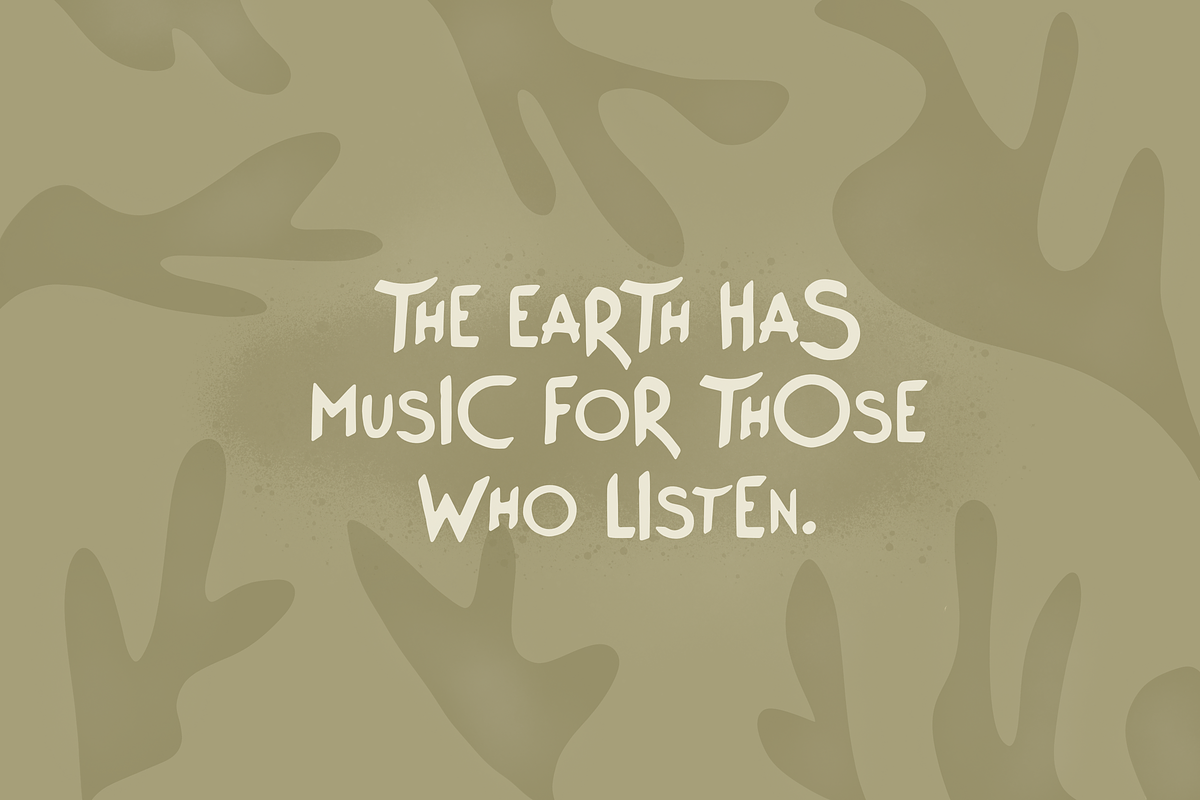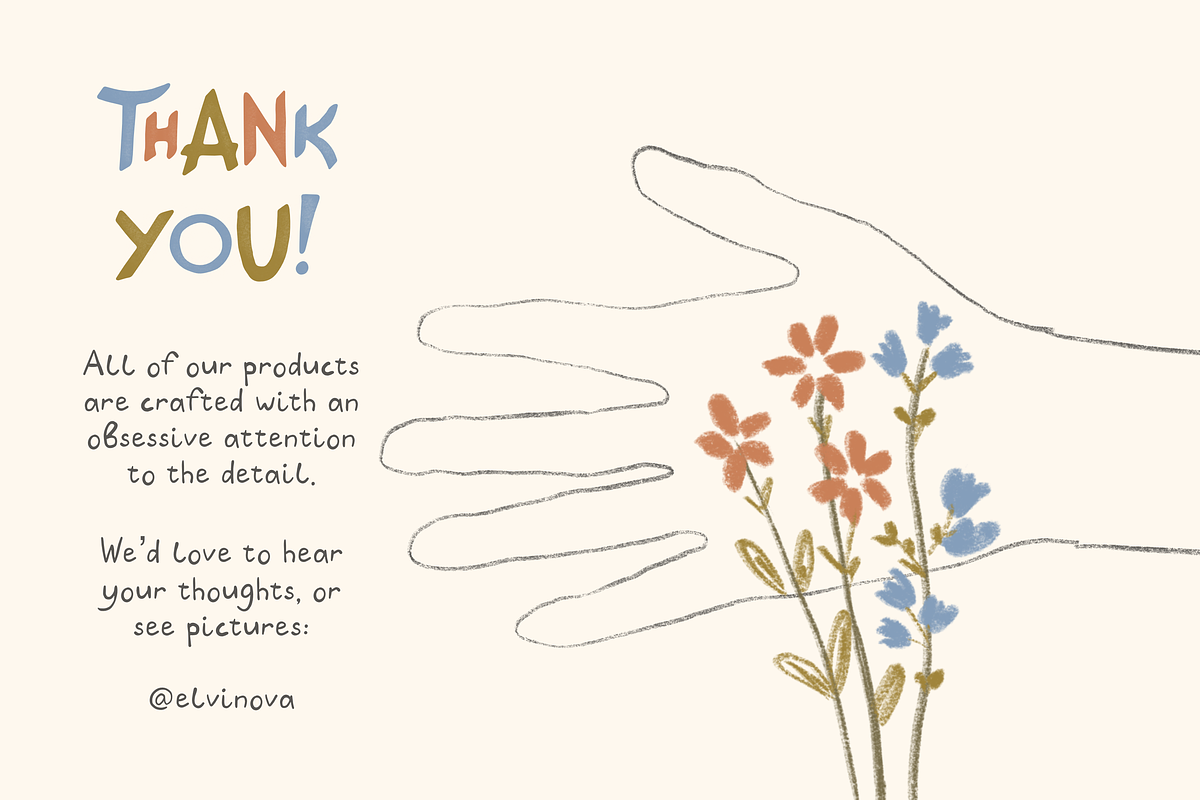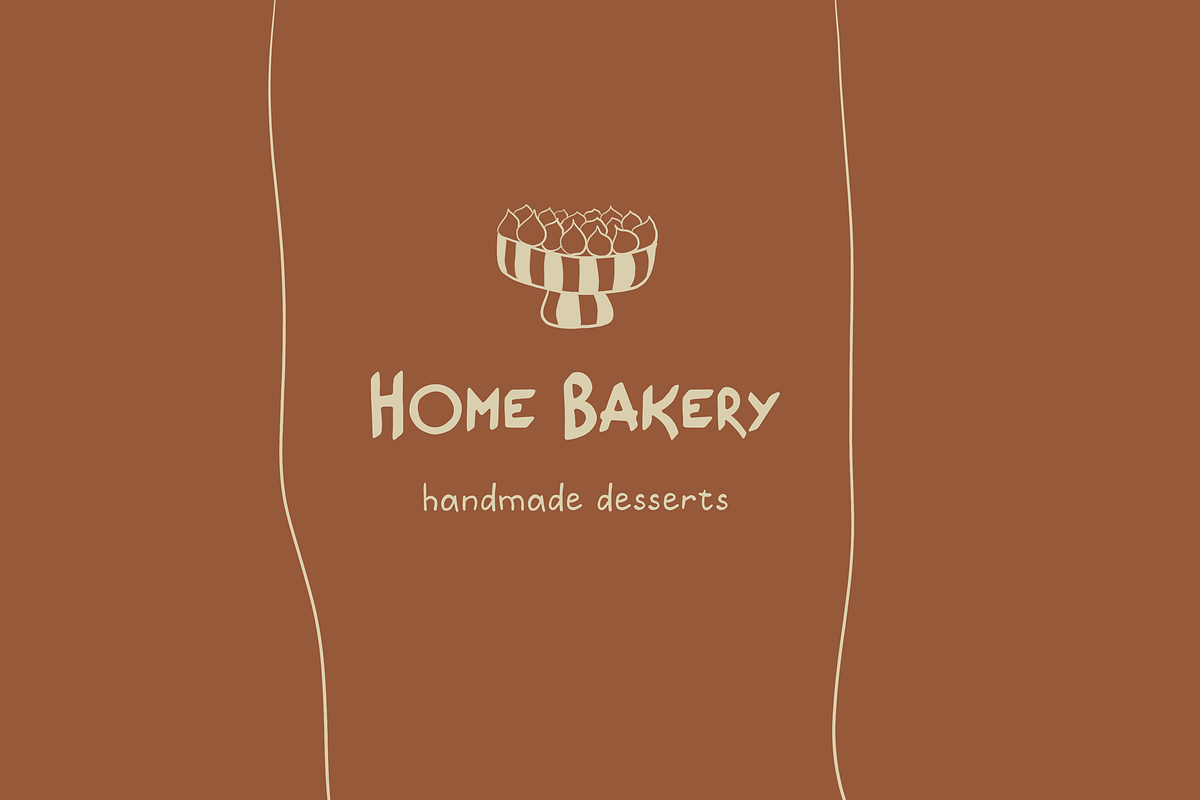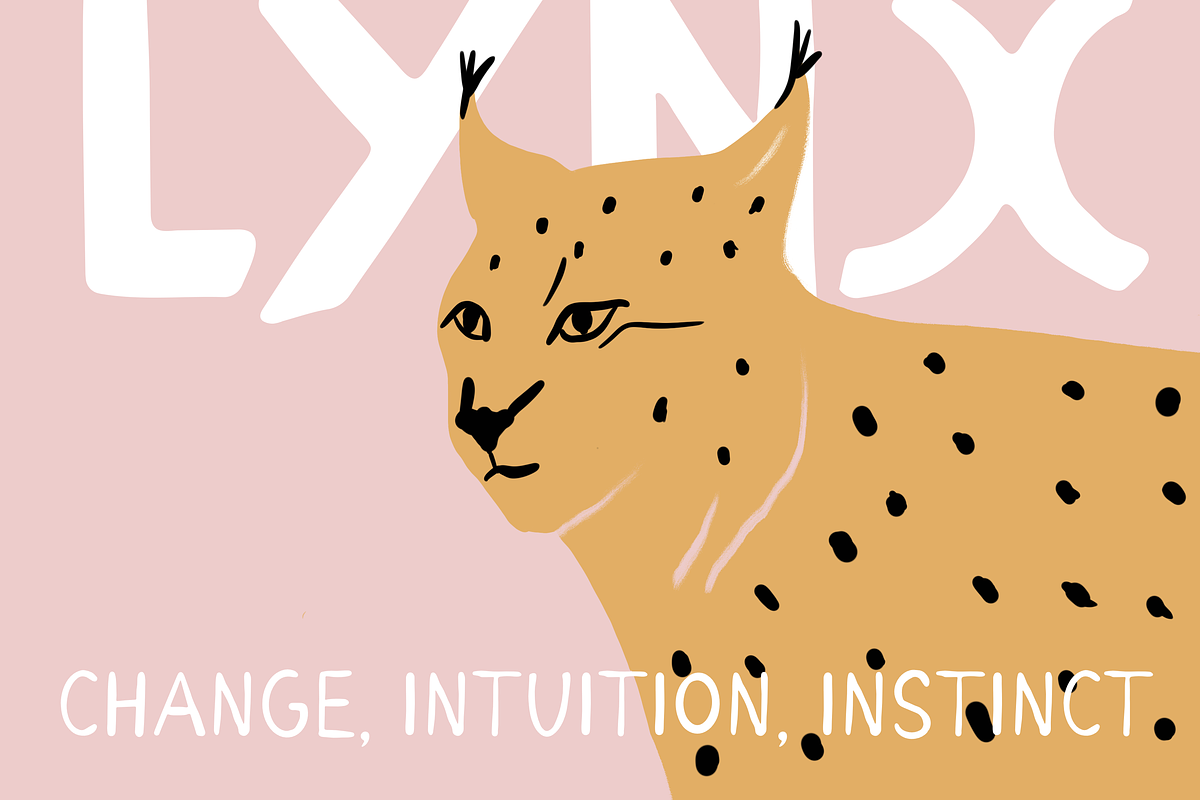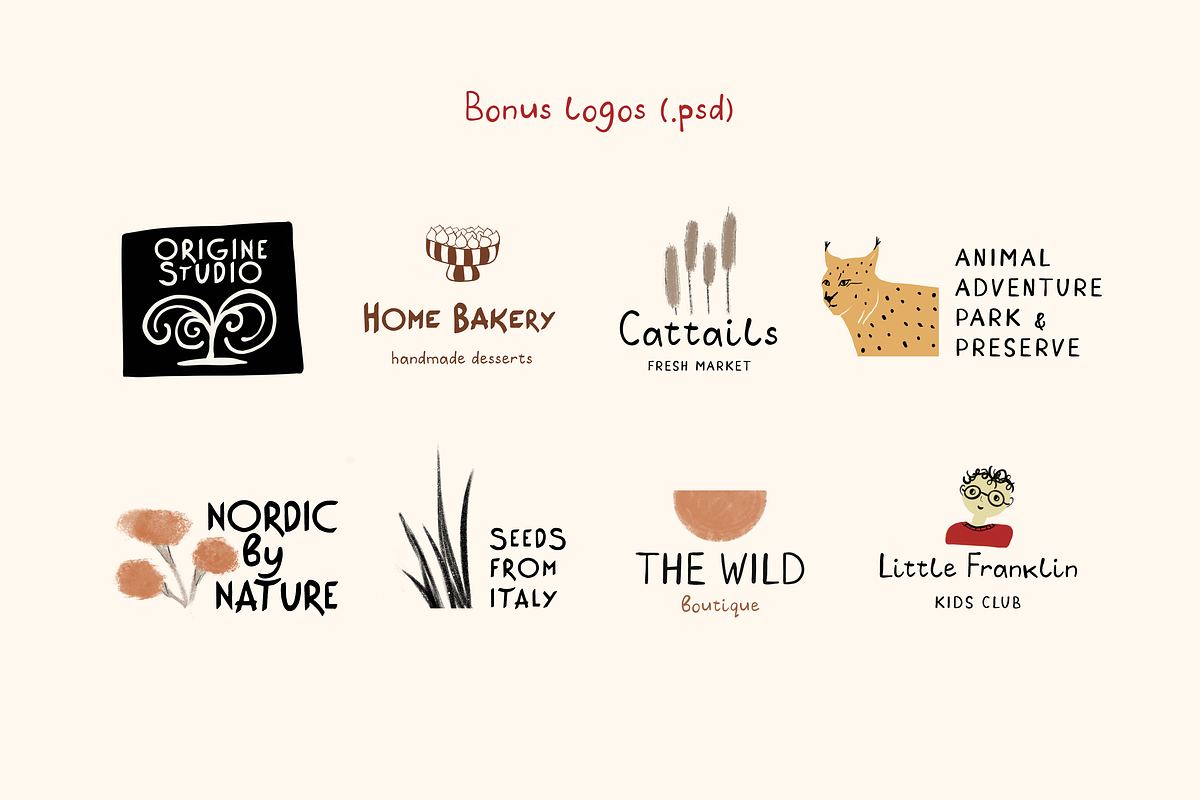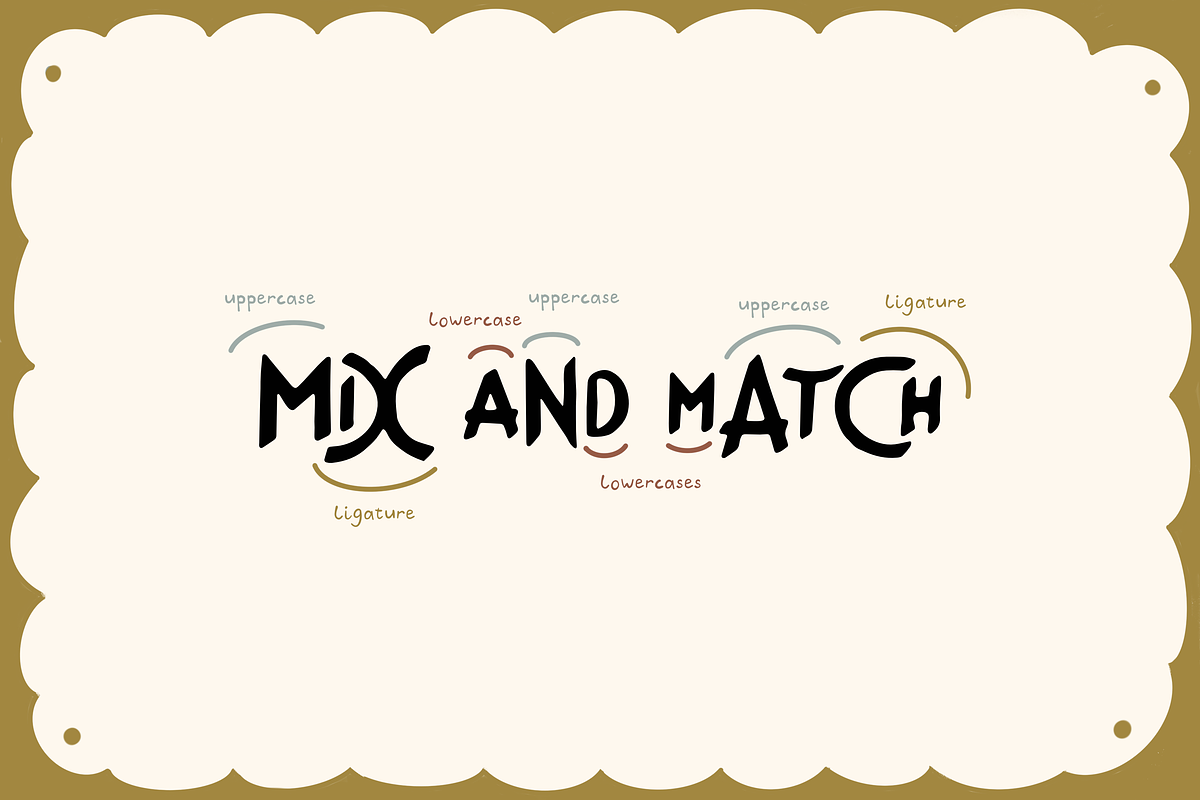
Taiga Charm Handwritten Font Duo
Taiga Charm is a small font duo I drew by hand. Simple, warm, and easy to pair. One is a chunky title face; the other is a neat script for notes and tags. I also added a few logo badges so you can build a look fast.
Use it for logos, packaging, kid’s stuff, posters, quotes, and socials.